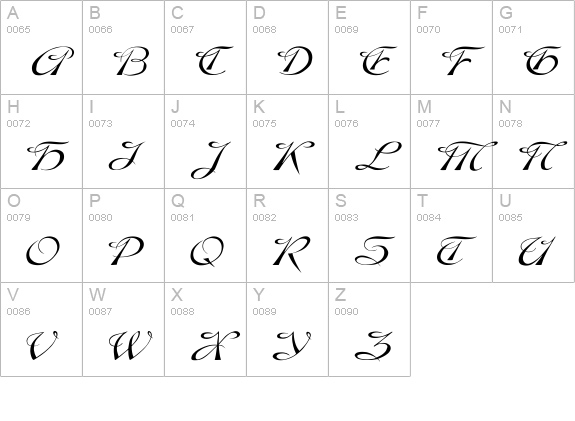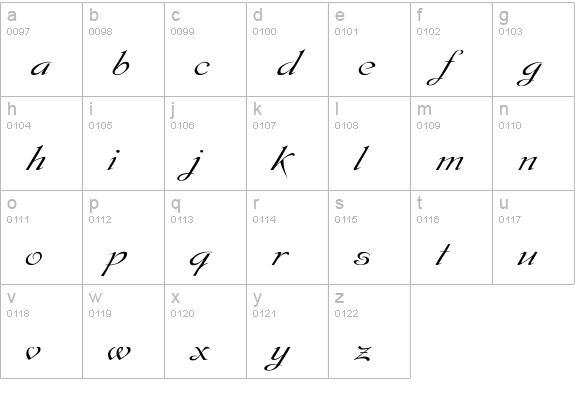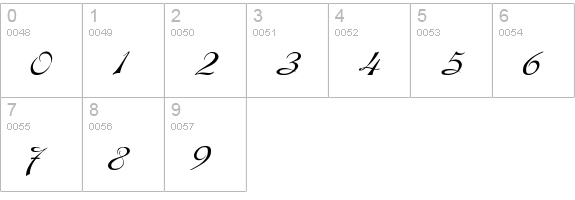
Dobkin Wd Plain is a charming and versatile font that exudes elegance and sophistication. Its clean lines and classic design make it perfect for a wide range of projects, from invitations to branding materials. The font's timeless appeal and readability make it a great choice for both print and digital applications. What makes Dobkin Wd Plain even more appealing is that it is available for free download at FontsMarket.com. This means that you can easily access this high-quality font without any cost, making it a valuable resource for designers and creatives looking to enhance their projects without breaking the bank. Whether you're working on a wedding invitation, a logo design, or a marketing brochure, Dobkin Wd Plain is sure to add a touch of sophistication and style to your work. Download it for free today and elevate your designs with this elegant and timeless font.